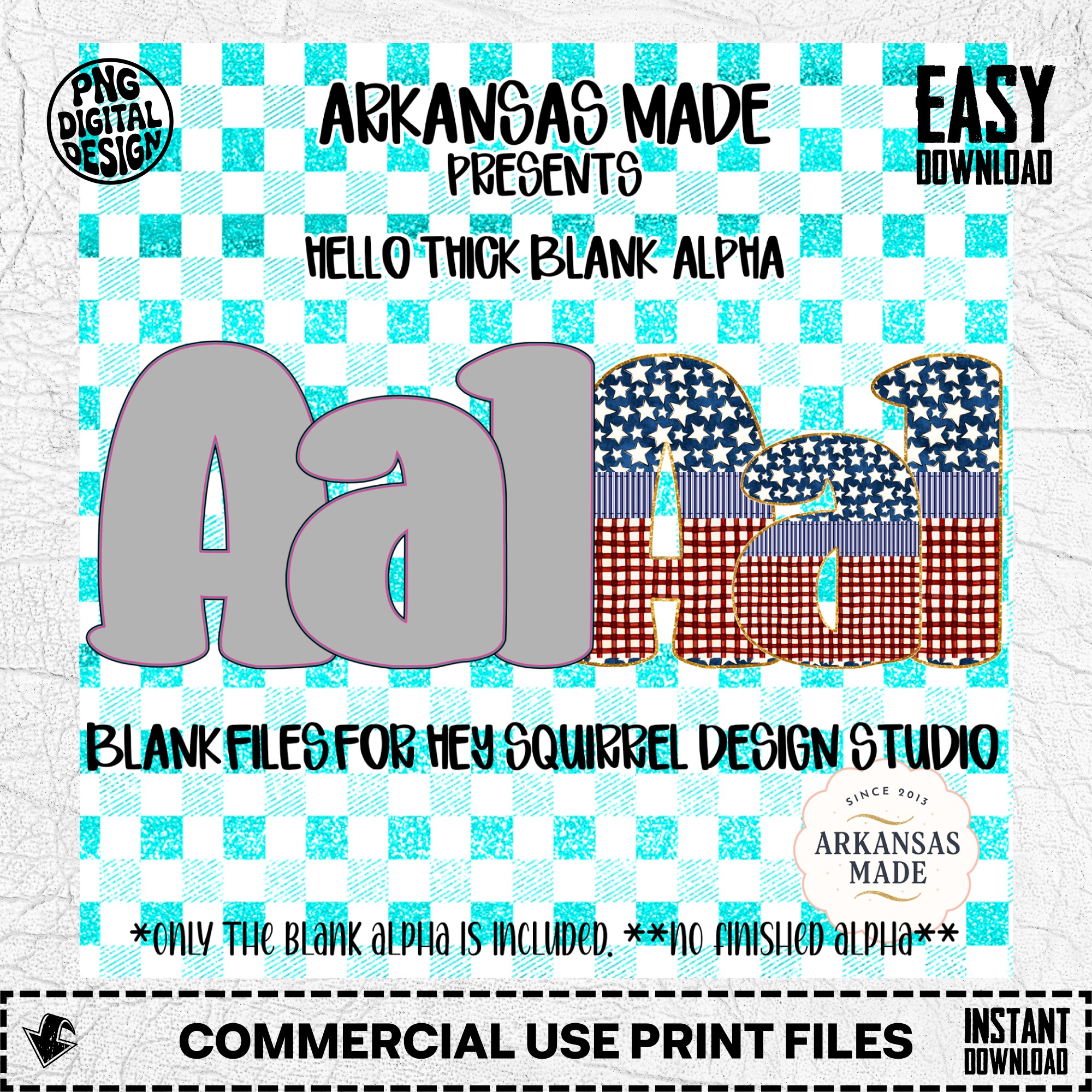
Hello Thick Blank Alpha Digital PNGs for Hey Squirrel Design Studio, Chunky Bubble Letters, Crafting Files, Customizable Font
Hello Thick Blank Alpha digital PNGs for Hey Squirrel Design Studio! Create custom, bold designs with these versatile blank chunky bubble letters. Unleash your creativity with these easy-to-use digital files, perfect for personalizing t-shirts, mugs, signs, and more. Ideal for crafters, small business owners, and DIY enthusiasts looking to design unique patriotic items, holiday decor, or custom gifts. Please note: This listing includes only the blank alpha files, no finished designs are provided.